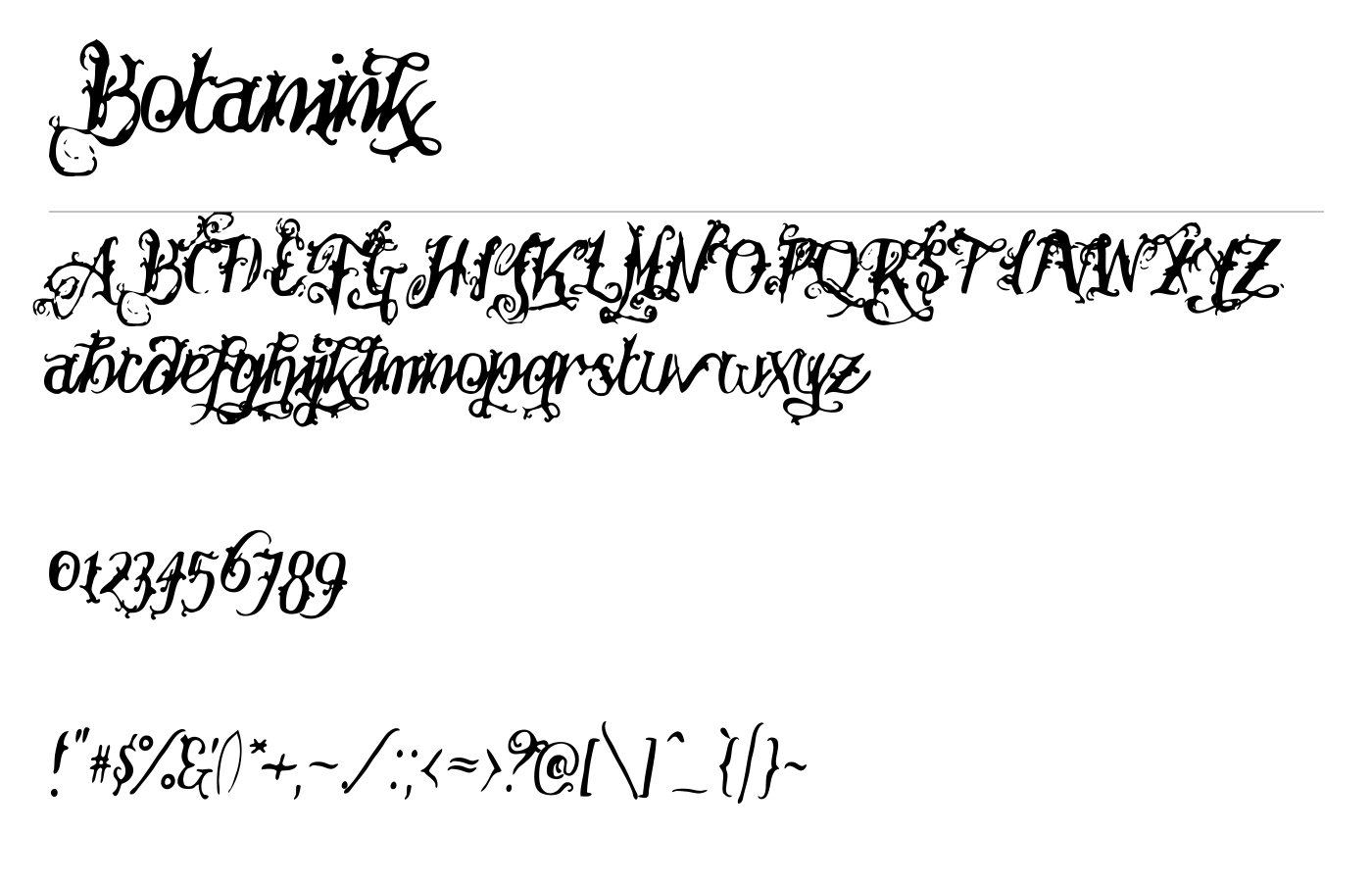
Botanink is an ornate script font with decorative flourishes and a whimsical, botanical-inspired style. Its intricate letterforms blend sharp and flowing strokes, giving it a lively, artistic feel ideal for creative branding, invitations, and decorative headlines where a unique, nature-infused personality is desired. This font works best in display settings due to its complexity and distinctiveness.
Botanink Font
About Botanink Font
| Font family | Botanink Font |
| Designer | Måns Grebäck |